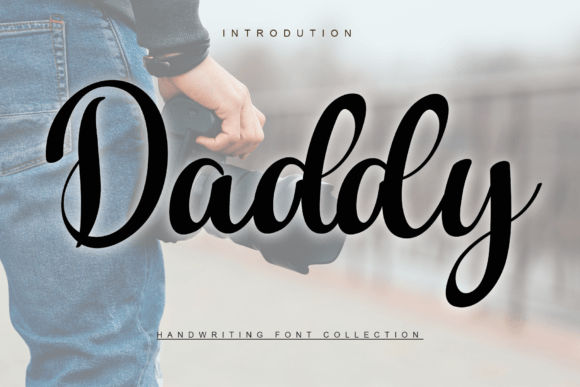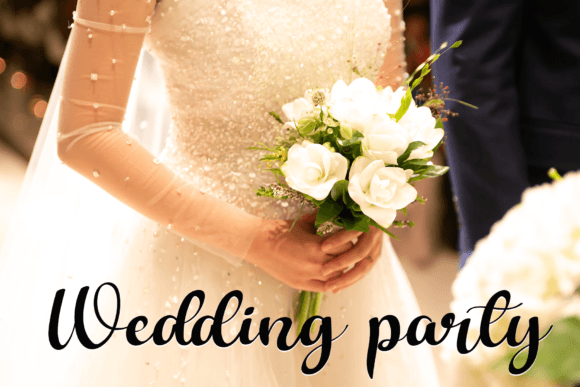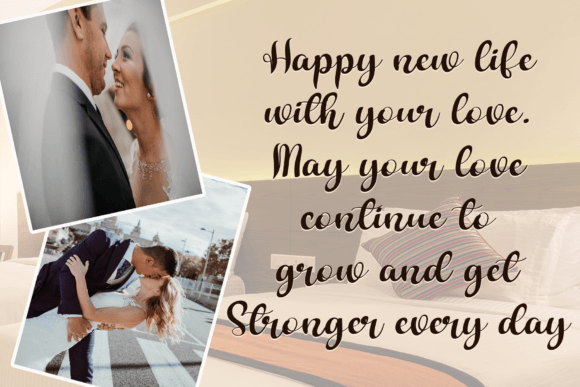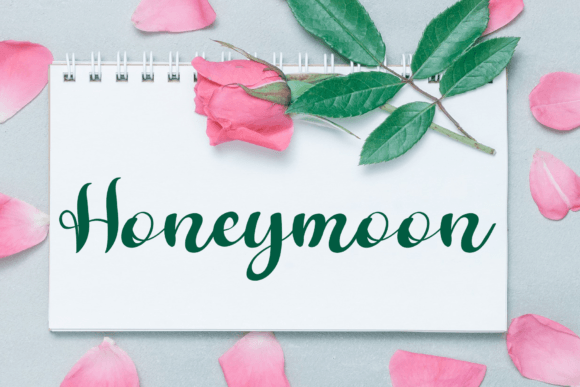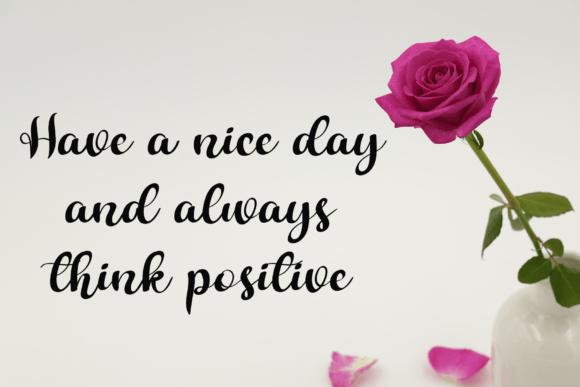
Daddy Font: Where Creativity Meets Timeless Elegance
Have you ever stared at a blank canvas, waiting for inspiration to strike? That’s exactly what happened to me last week. I was working on a new project, trying to find the perfect font to bring my design to life. And then, I stumbled upon Daddy Font – a beautiful, handwritten font that immediately caught my attention. Its elegant touch and unique style made me fall in love, and I knew I had to share it with fellow designers.
Daddy Font is more than just a pretty face; it’s a versatile tool designed to elevate your projects to the next level. With its distinct and timeless style, you can create spectacular designs that leave a lasting impression. Whether you’re a seasoned pro or a budding designer, Daddy Font is an invaluable asset that will help you take your creativity to new heights.
- Unique Characteristics: Daddy Font fonts are known for their distinctive and playful styles, which can add a touch of whimsy and personality to any design project.
Daddy Font Review
As a designer, I’ve had the chance to work with “Daddy Font” and here’s my honest review.
- Unique aesthetic: Daddy Font has a distinct, hand-drawn look that’s perfect for projects that need a bit of personality.
- Good for titles and headings: The font is clear and legible, making it a great choice for titles and headings where you want to make a statement.
- Limited versatility: While Daddy Font is great for titles and headings, it may not be the best choice for large blocks of text or body copy.
- No language support: Unfortunately, Daddy Font doesn’t support many languages, which may limit its use in projects that require multilingual support.
Overall, I think Daddy Font is a great choice for designers who want to add a bit of personality to their projects. While it may have some limitations, its unique aesthetic and free availability make it a great option for many designers.